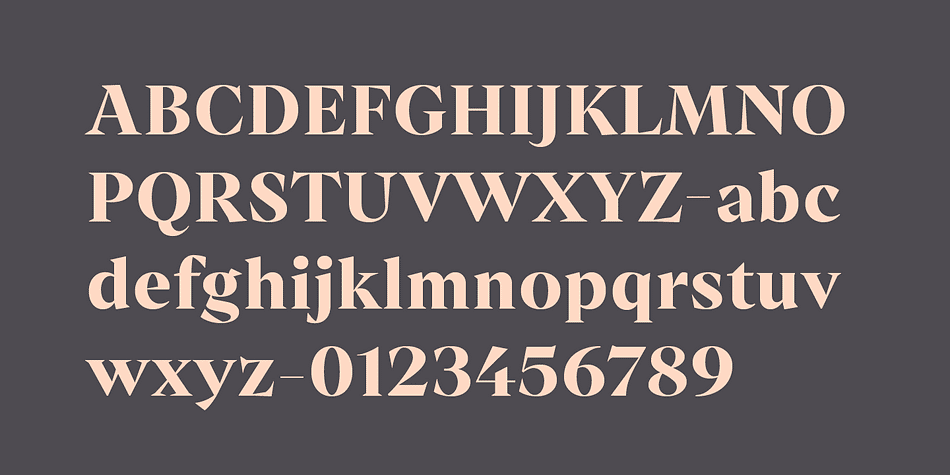
Archeron Pro
Designed by Olivier Gourvat, Archeron Pro is a serif and stencil font family. This typeface has twenty-one styles and was published by Mostardesign.
Archeron Pro is a modern serif font family with 18 fonts ranging from light to Heavy with the corresponding italics. This new font family revisits the neo-classical style of highly contrasted serifs and brings a resolutely contemporary touch to graphic or editorial projects. Archeron Pro has also been designed with high-contrast character ratios and a high x-height to give sentences more rhythm and legibility to long texts for on-screen display or printed materials.
The italic styles of this family of characters are voluntarily removed from the calligraphic style to bring modernity to the italicized style, thus giving more of a typographic style.
With these features, Archeron Pro is an elegant and contemporary serif specially adapted for modern communication as well as complex typographic projects. Archeron Pro also has a complete set of real small capitals with a little more tension than uppercase and generous proportions to give more emphasis to the texts you want to highlight.
In terms of features, Archeron Pro is equipped with professional features such as case sensitivity, alternative glyphs, F-ligatures, circled numbers, localized letters, ordinals, or “Pro Kerning” with more than 5,000 pairs of glyphs which brings more clarity when reading long paragraphs. Archeron Pro also has a complete set of proportional and tabular numbers, fractions, and circled numbers for complex realizations such as tables or numerical lists.
Archeron Pro is ideal for many graphic projects such as branding, poster creation, complex editorial projects, signage, website creation, and more. This family of characters also has a stencil style (Archeron Pro Stencil) with the same characteristics and the same proportions as the normal version. This style of 6 additional fonts will highlight all the headlines of your editorial projects such as titles, sub-titles or captions of your web projects and UX design.
This serif family will also meet the needs of international communication as Archeron Pro and Archeron Pro Stencil cover more than 120 languages for Western Europe, Eastern Europe, and Central Europe.